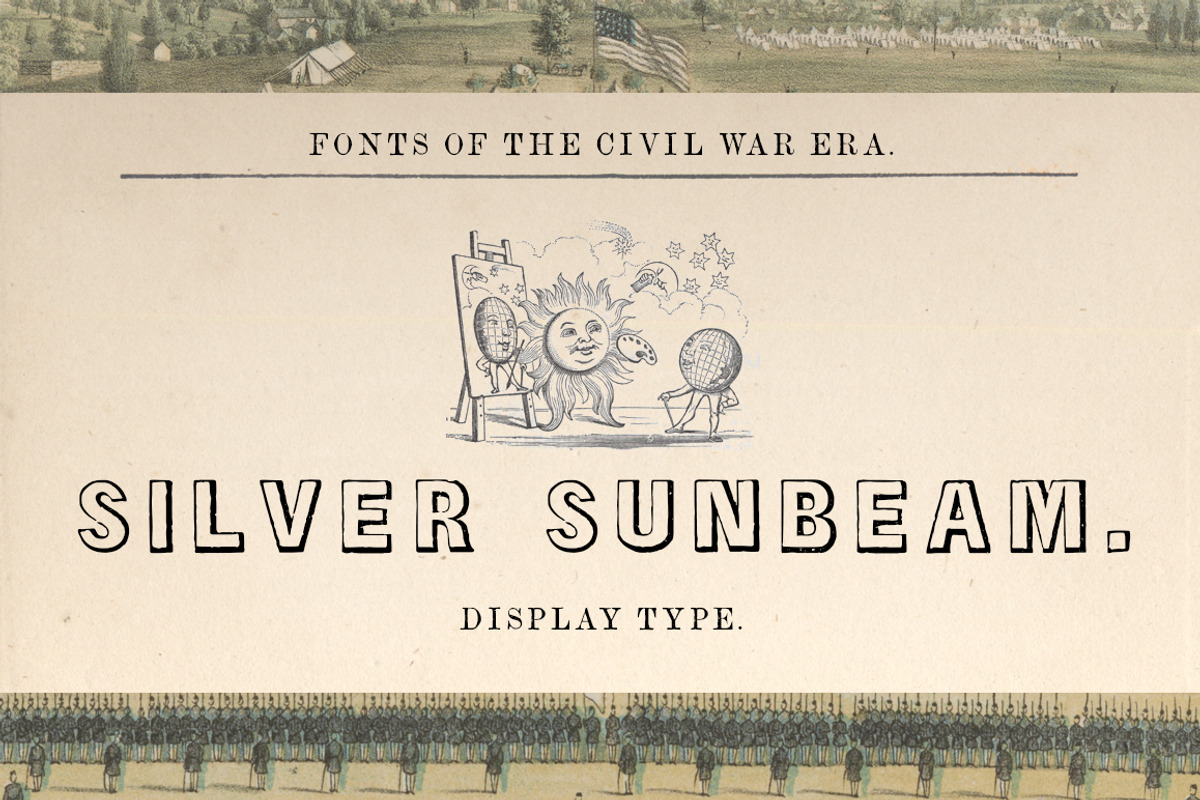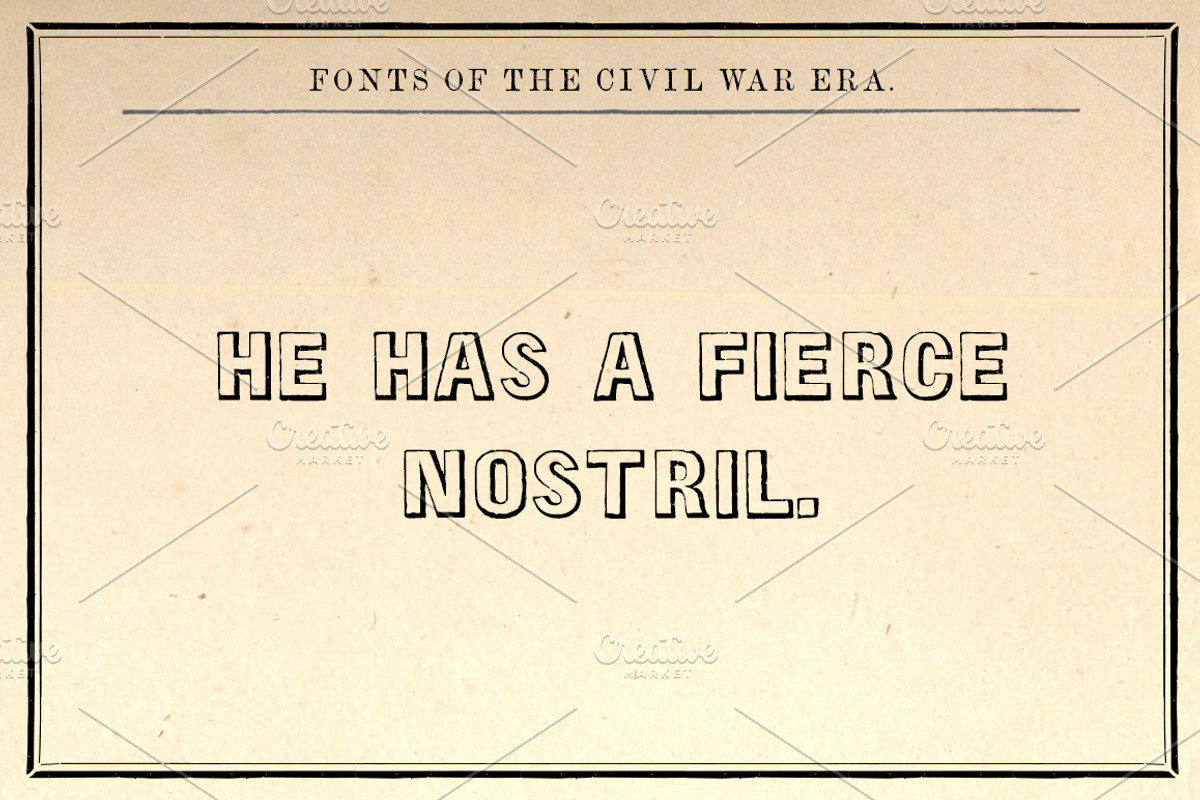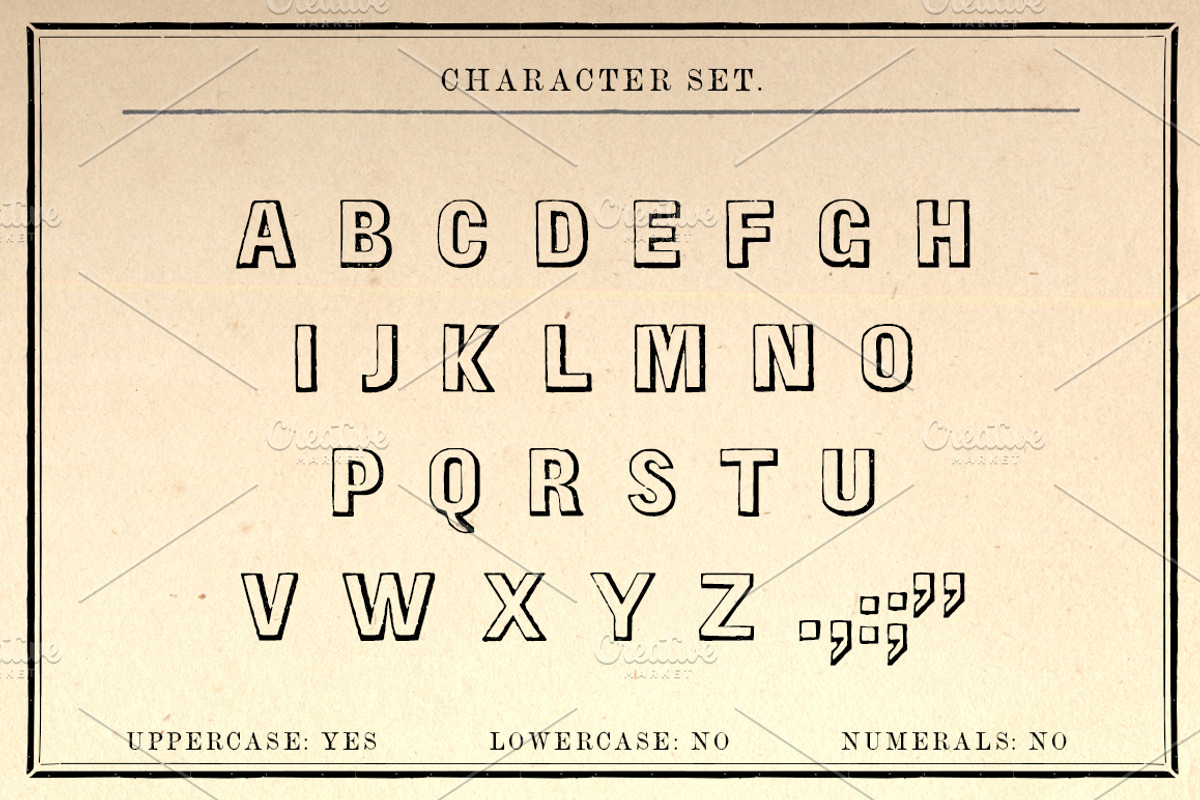
Silver Sunbeam Display Font
The Silver Sunbeam Regular OTF is a hollow outlined shaded sans serifed display font that comes from Volume 1 of The New Blazing Star Press's "Printer's Type Case."
- Unique Letterforms
The lowercase features a slight variant of the uppercase alphabet.
This font DOES NOT include LOWERCASE or NUMBERS, as they did not exist in the original font. Only basic punctuation is included.
It was very common for 19th century typesetters to use other fonts to substitute punctuation and numerals missing from a particular typeface.
Since they were scanned directly from the pages of original 150 year-old documents, the letters show imperfections common to letterpress printing.
WHAT'S BEHIND THE NAME "THE SILVER SUNBEAM"?
The Silver Sunbeam is one of the seminal instructional guides to wetplate collodion photography, first published in 1864 by John Towler. This typeface was used in an advertisement for Charleston, S.C. photographer C.J. Quinby in 1858.
All of our Civil War-era historical fonts were copied entirely from ORIGINAL LETTERS scanned from type specimen, business directories, song sheets, broadsides, and advertisements, printed between 1848 and 1867 gathered from museums, private collections, and the Library of Congress. No cheap work done, but instead with a neatness not to be excelled in the Typographical Art.